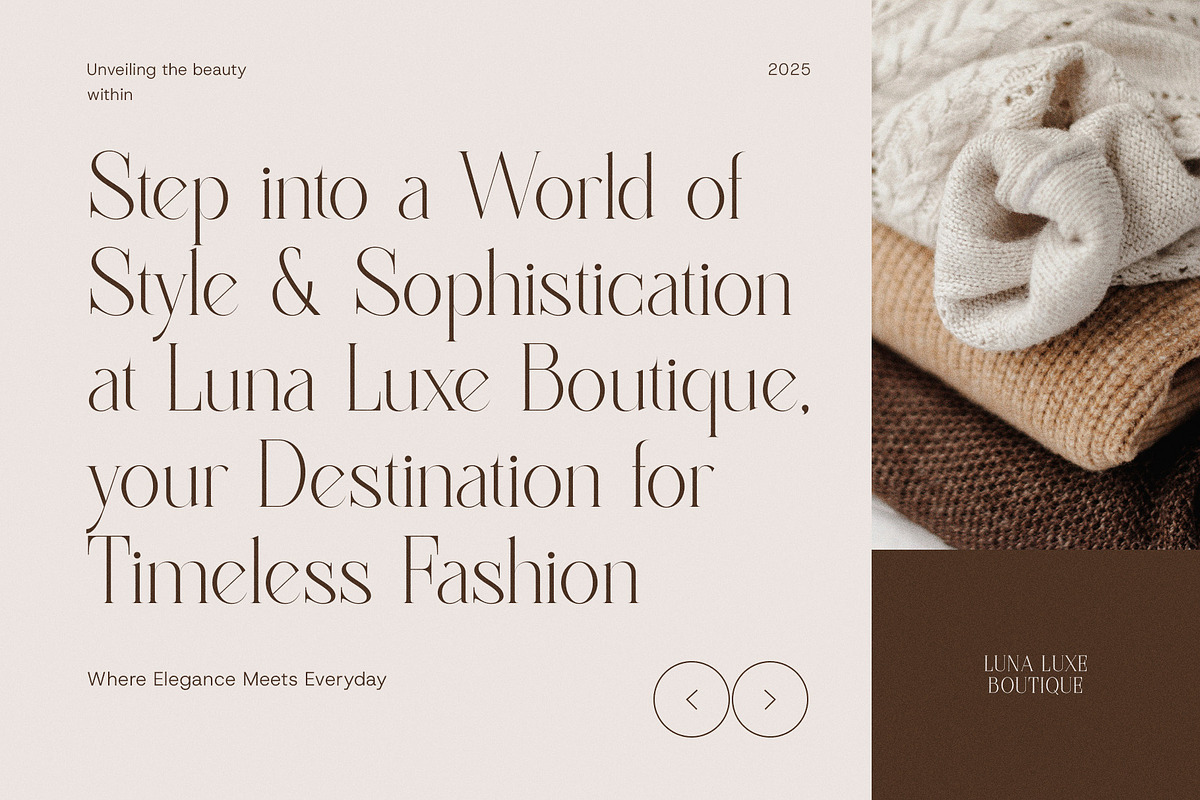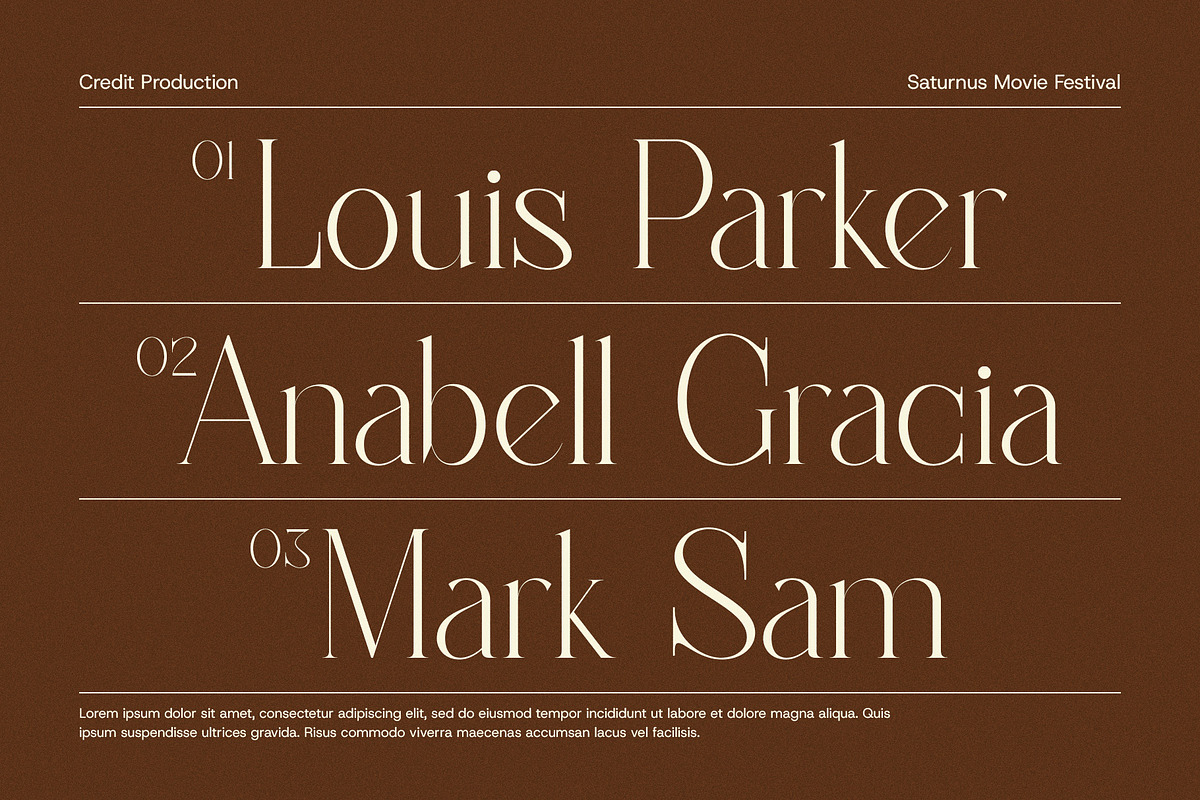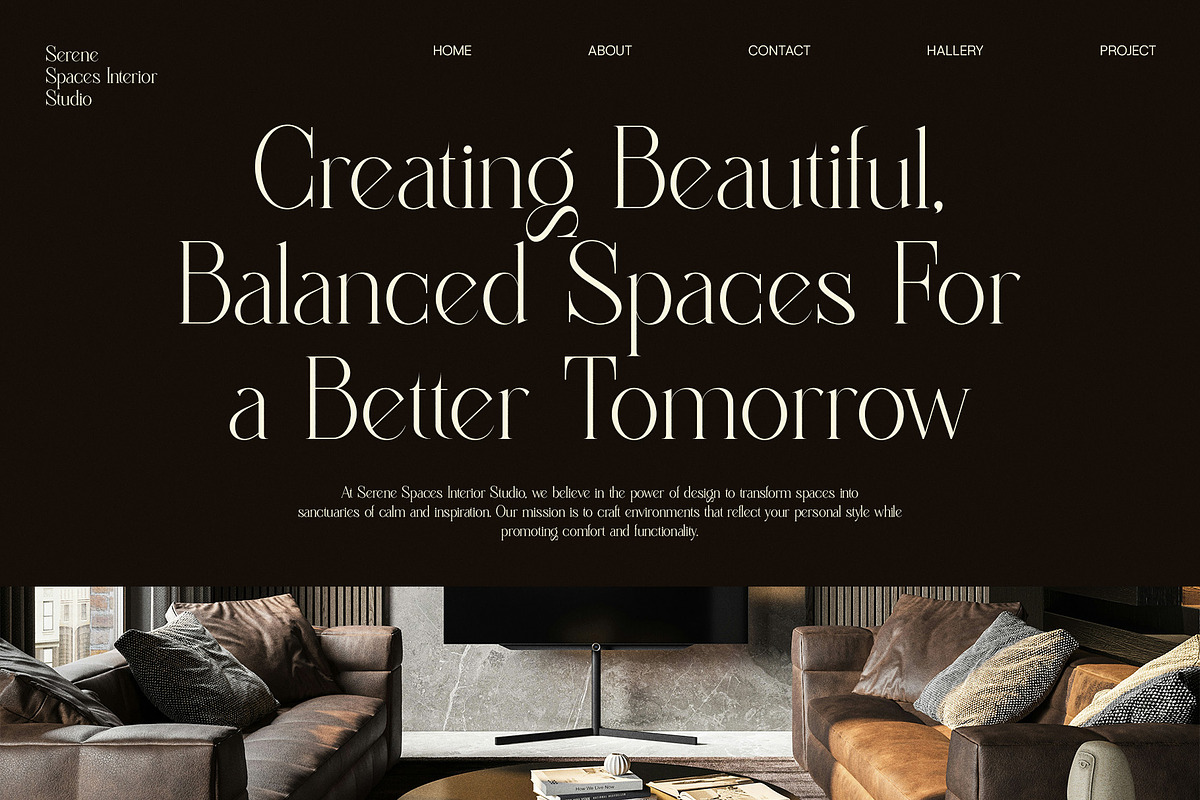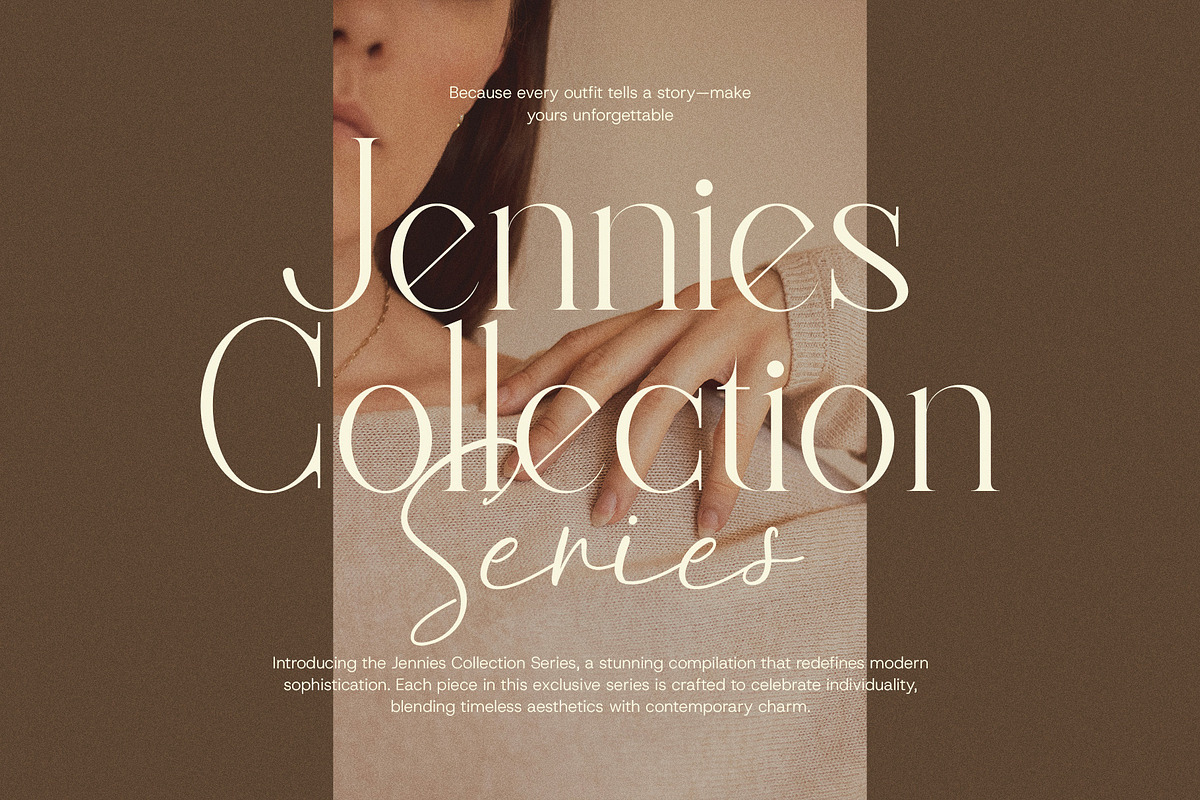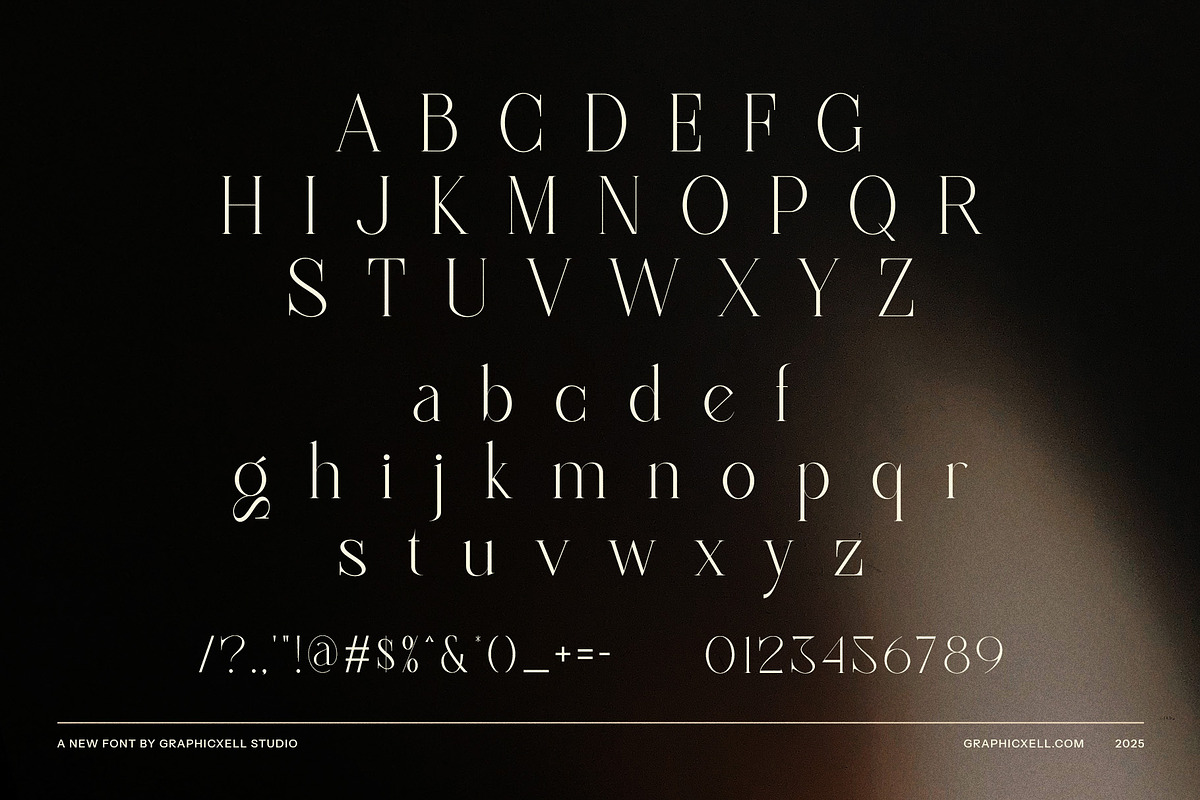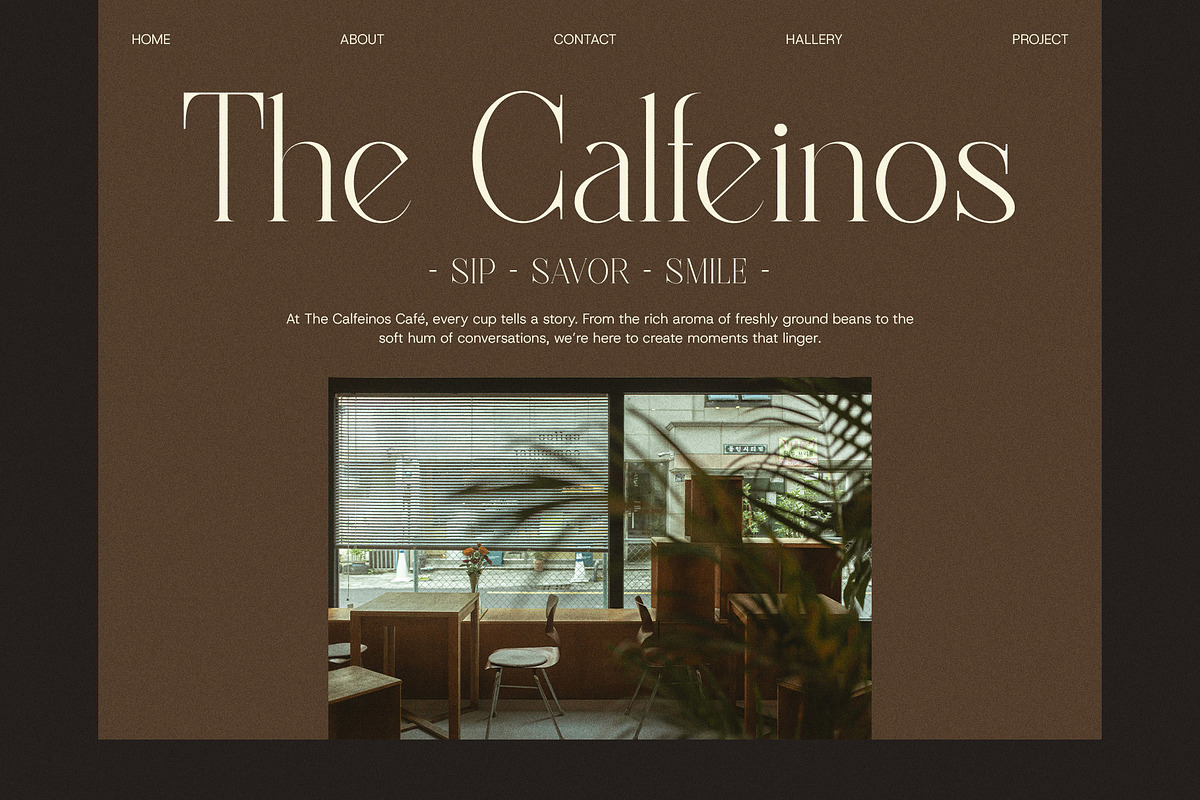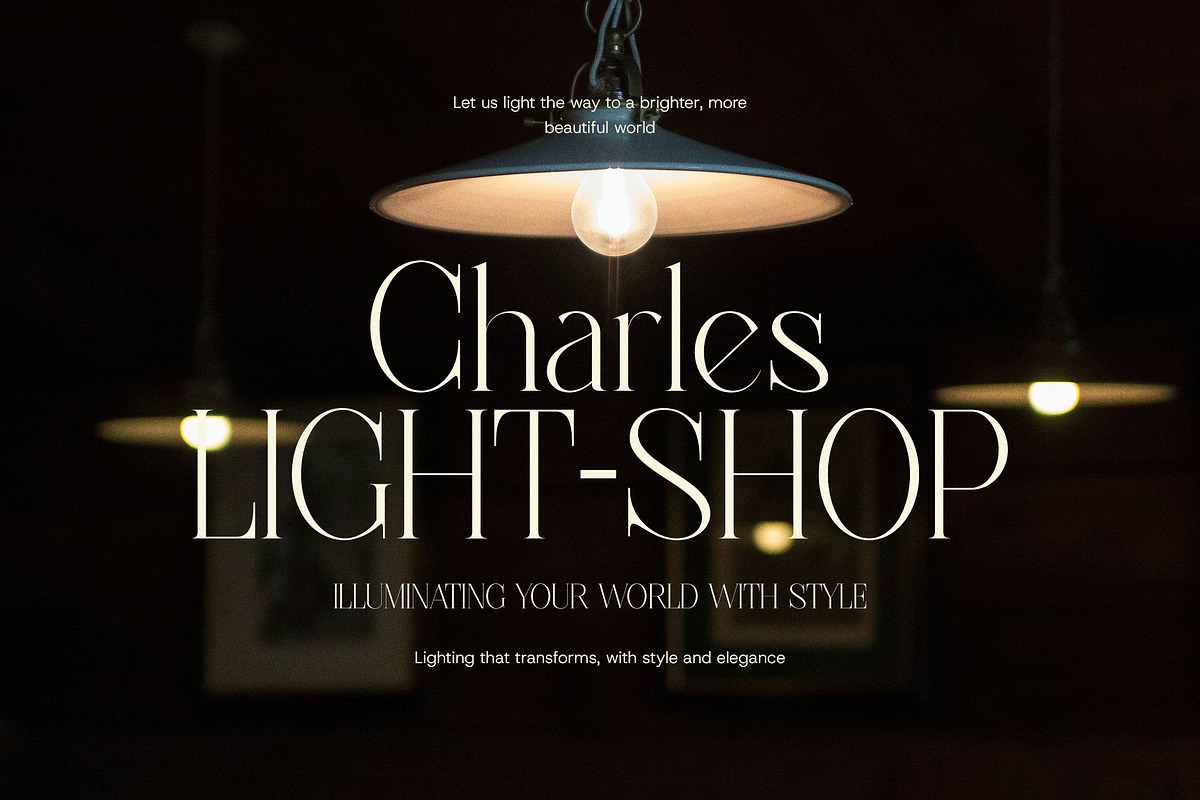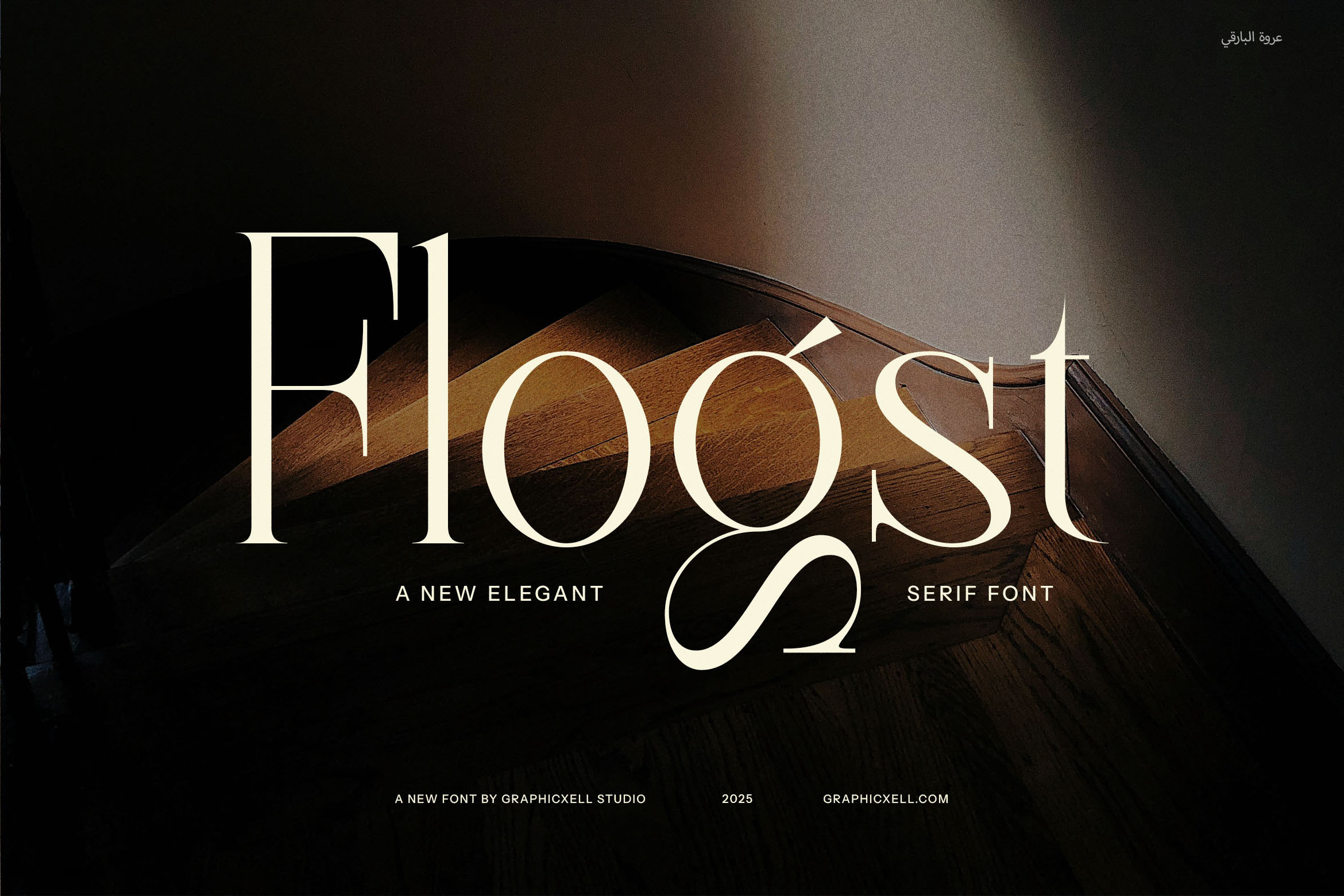
Flogst Elegant Serif Font
Flogst Elegant Serif is a refined and modern typeface that exudes sophistication and artistic flair. Designed with smooth curves, sharp serifs, and graceful proportions, this font strikes the perfect balance between timeless elegance and contemporary style. Whether for luxury branding, editorial layouts, high-end packaging, or web design, Flogst enhances any project with a polished and upscale aesthetic.
One of Flogst’s defining features is its beautifully crafted ligatures and stylish alternates, allowing for creative and fluid typography. These refined details add a sense of exclusivity, making it the ideal choice for fashion labels, boutique branding, premium advertisements, and elegant magazine headlines. The high-contrast strokes and well-proportioned letterforms ensure both visual impact and effortless readability.
Versatile yet distinctive, Flogst seamlessly adapts to various design styles, from minimalist and sleek to bold and expressive. It pairs beautifully with modern sans-serif fonts for a contemporary contrast or can stand alone as a statement piece in logos, product packaging, and advertising campaigns.
For designers looking to create a sophisticated and memorable aesthetic, Flogst Elegant Serif is the perfect choice. With its luxurious details and timeless charm, this font is more than just a typeface—it’s a representation of style, refinement, and creativity, designed to leave a lasting impression on any project.